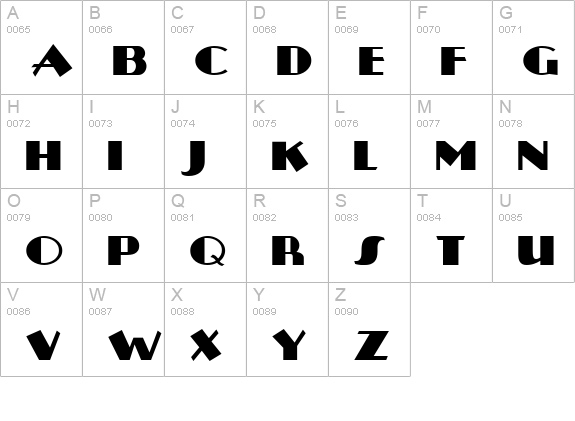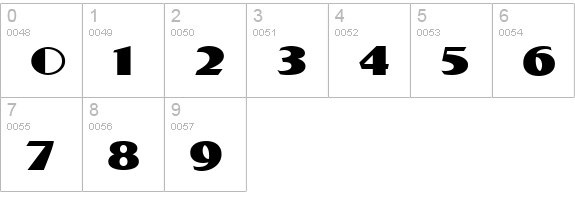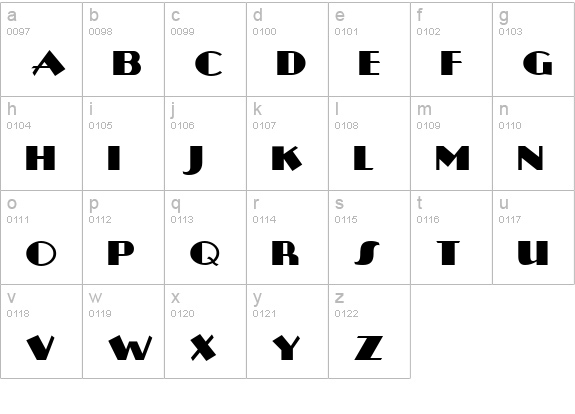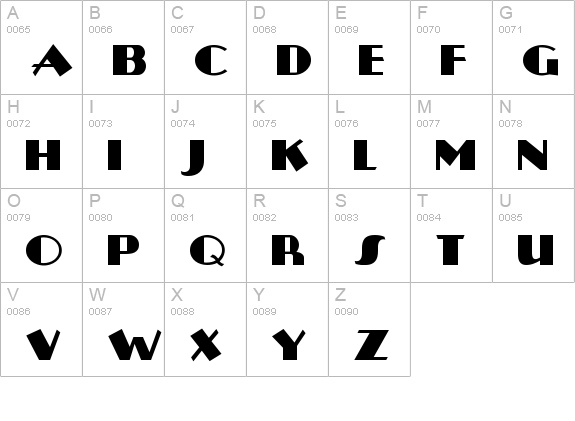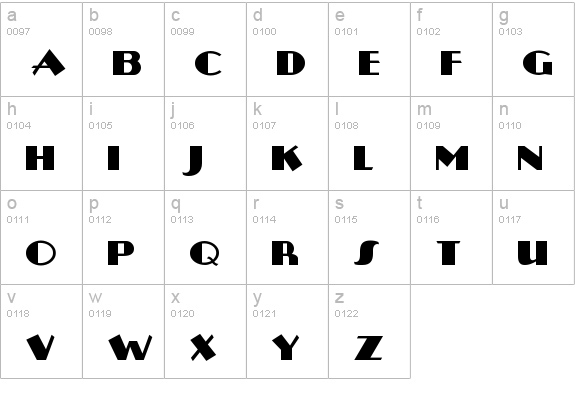
Plug Nickel NF Font Details
Plug Nickel NF is a bold and dynamic font that exudes a sense of strength and confidence. With its sharp edges and modern aesthetic, this font is perfect for making a statement in any design project. Whether you're creating a striking logo, eye-catching headlines, or powerful posters, Plug Nickel NF will not disappoint. The best part? Plug Nickel NF is available for free download at FontsMarket.com. This means you can add this impressive font to your collection without breaking the bank. So why settle for ordinary fonts when you can elevate your designs with Plug Nickel NF for free? Download it now and take your projects to the next level.